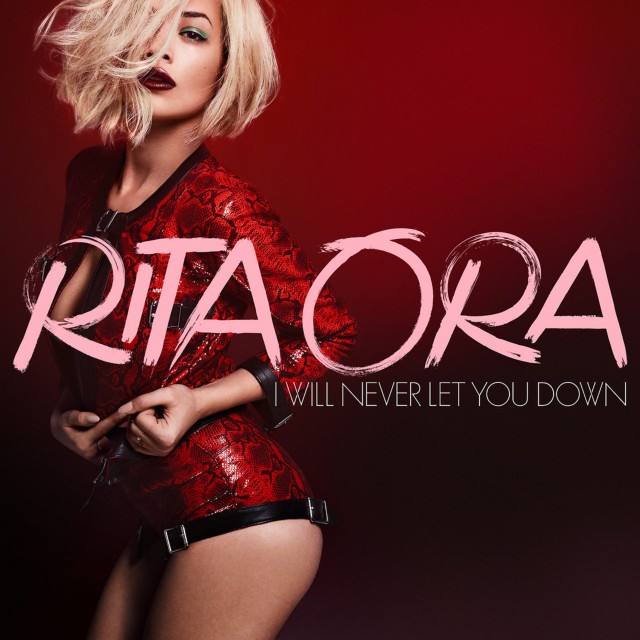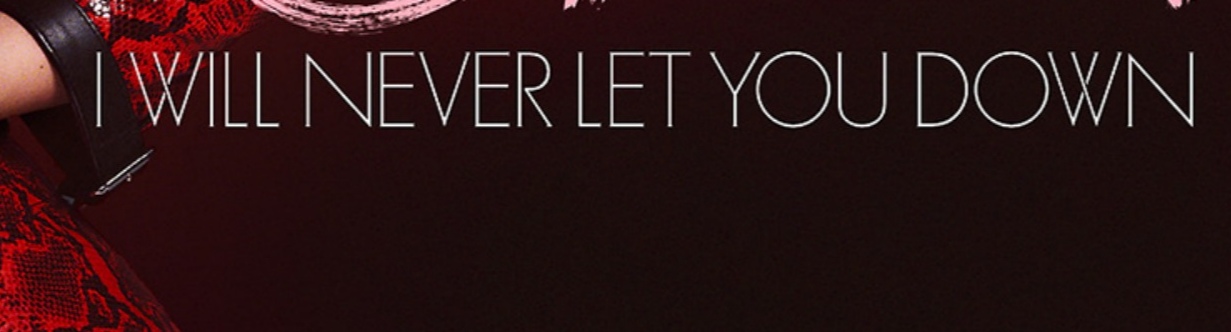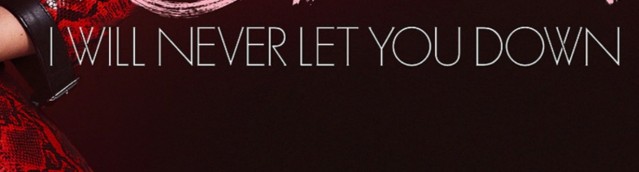
Can someone please help me identify the font used on the cover of Rita Ora's single I Will Never Let You Down? It looks like futura light but the letter W doesn't match. Thanks in advance!
I can imagine that it’s (a) Futura with some customizations: the W is made from two overlapping Vs, and the R was opened up slightly.
Thanks, I did some more research and R and some letters match with creative market Aerodyne https://creativemarket.com/MottJordanDesigns/5874813-Aerodyne-Font-Family-Lite
Hmm, feels substantially different to me. Unless there are some alts I don’t know about.
Yes, but he Rs look the same though